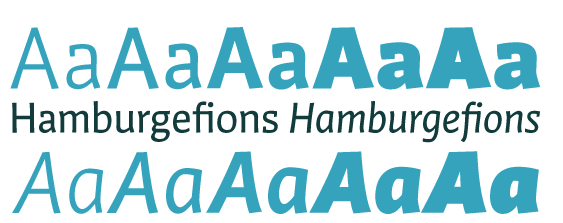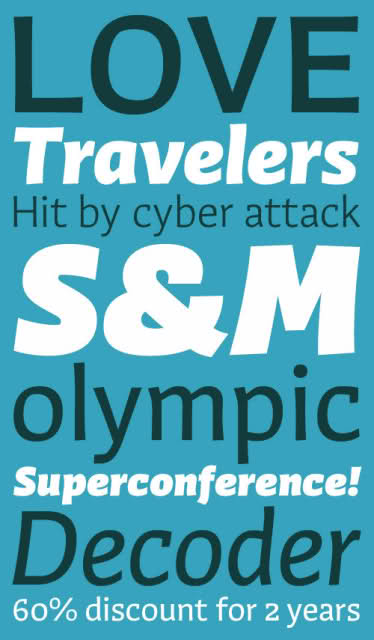
ReType veröffentlicht Winco
Ramiro Espinoza’s Winco family can be labelled a humanist sans-serif; but in spirit it is more closely related to that rather rare typeface category called ‘glyphic’ or ‘incise’.
Glyphic faces occupy a place roughly half-way between seriffed renaissance book faces and sans-serifs. Instead of serifs, these types have flared strokes, or, analysed the other way around, are tapered in the middle. This characteristic is generally seen as a reference to letters carved into stone, hence the names ‘glyphic’ and ‘incise’. The proportions are generally humanist, i.e., closer related to those of old style and renaissance book type than to the more mechanic construction of the industrial and geometric sans-serifs made popular by modernist graphic design.
While conceiving Winco, Ramiro Espinoza studied the work of the masters of postwar book cover design: Helmut Salden, Boudewijn Ietswaart, Berthold Wolpe; among others.
He also looked into German and Czech traditions of expressive printing types that had such a strong presence in the earliest decades of the 20th century.
Having established a stylistic framework, Espinoza designed the typeface from scratch. This allowed him to create an original, typographically consistent and versatile family in five weights, from Light to Ultra Black. Instead of taking cues from the details of any specific original, Espinoza worked with more abstract guidelines in mind: rhythm, angularity and calligraphic origin. This is specially noticeable In the italics, which are strongly calligraphic in nature. The step-by-step process has resulted in a typeface that successfully combines the high legibility and seriousness of a text face with the expressiveness, dynamism and subtle irreverence of the original hand-rendered alphabets. Winco is a versatile family whose extreme weights – Light, Black and Ultra Black – make for striking headlines, while the middle weights work well in both display and text settings. Produced as CFF OpenType fonts, all weights come with small caps and multiple numeral sets, including superscript, subscript and fractions, alternate glyphs and ligatures, making Winco a typographically sophisticated family suitable for a wide range of editorial and corporate work.